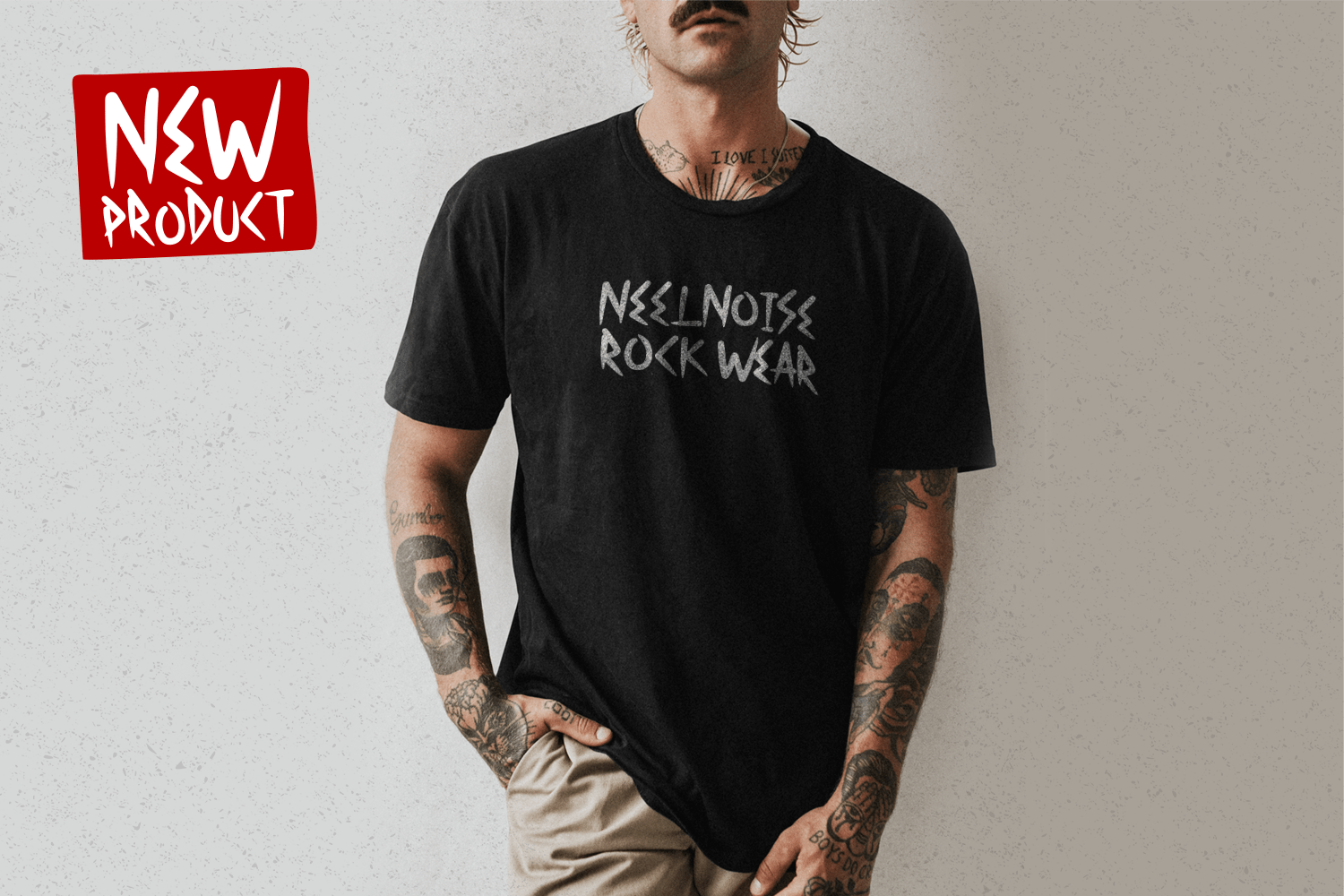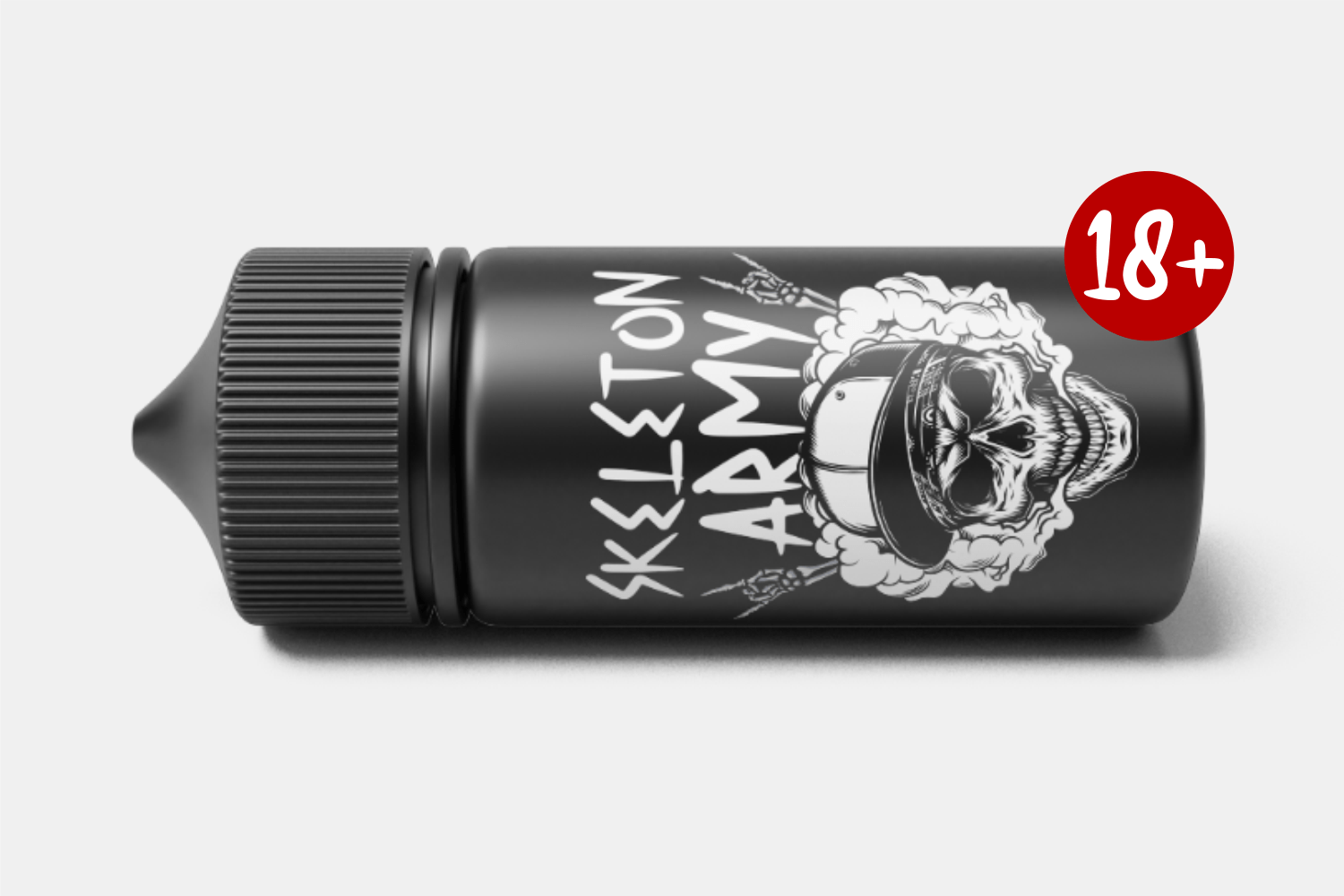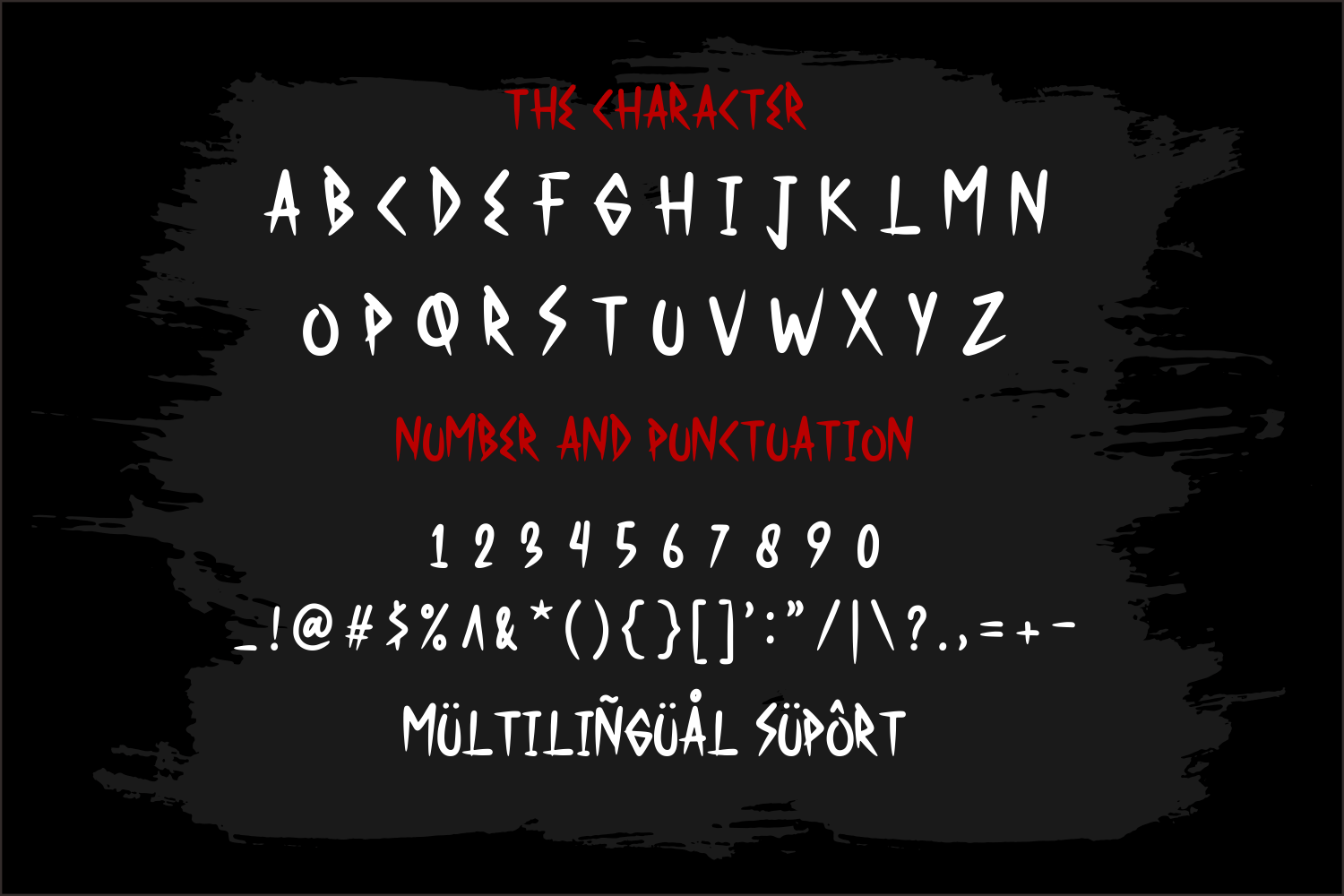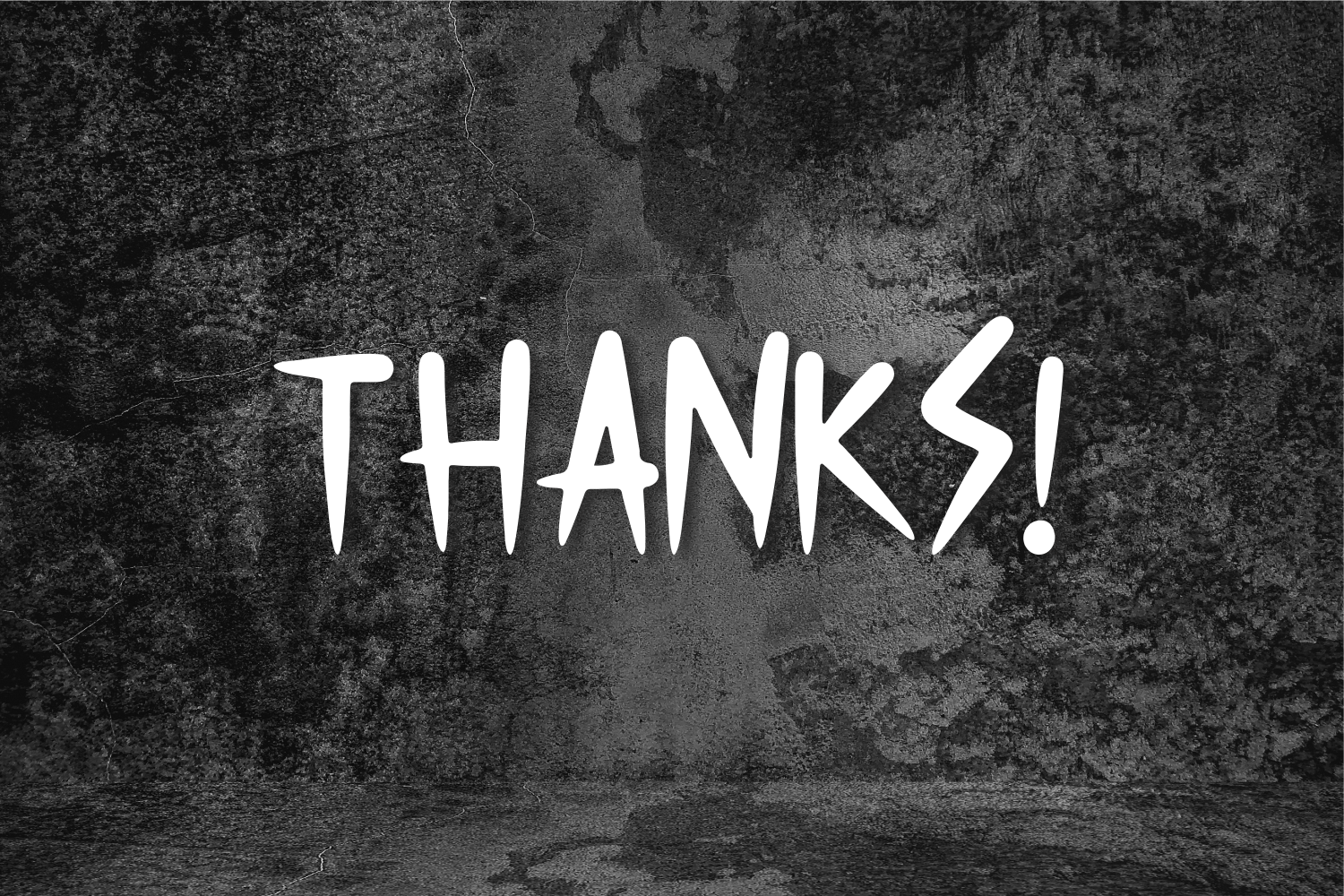
Holly Trouble Font
Holly Trouble Display Font is a spooky display font. Add it to your crafts, horror movie posters, t-shirts and anything else that requires a spectacular look.